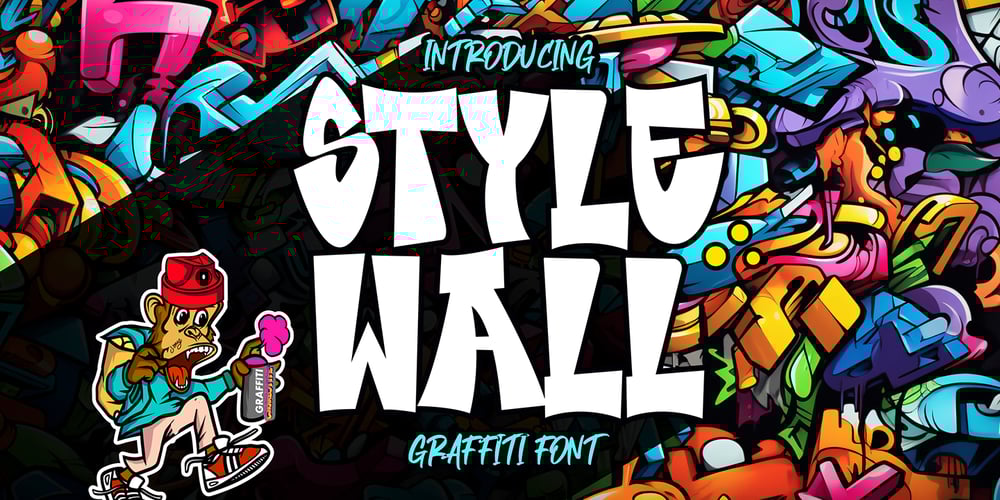
Style Wall Font Family was designed by Sipanji and published by Sipanji21. Style Wall contains 1 styles and family package options. Style Wall is a quirky street-style graffiti font that captures the bold, expressive energy of urban art. With its unconventional letterforms and playful design, this font brings a unique and edgy aesthetic to any project. Perfect for streetwear, posters, album covers, branding, or any design needing a touch of rebellious charm, Style Wall embodies the raw creativity and individuality of graffiti culture. Its dynamic and quirky style makes it a standout choice for designs that aim to break the mold and make a statement.